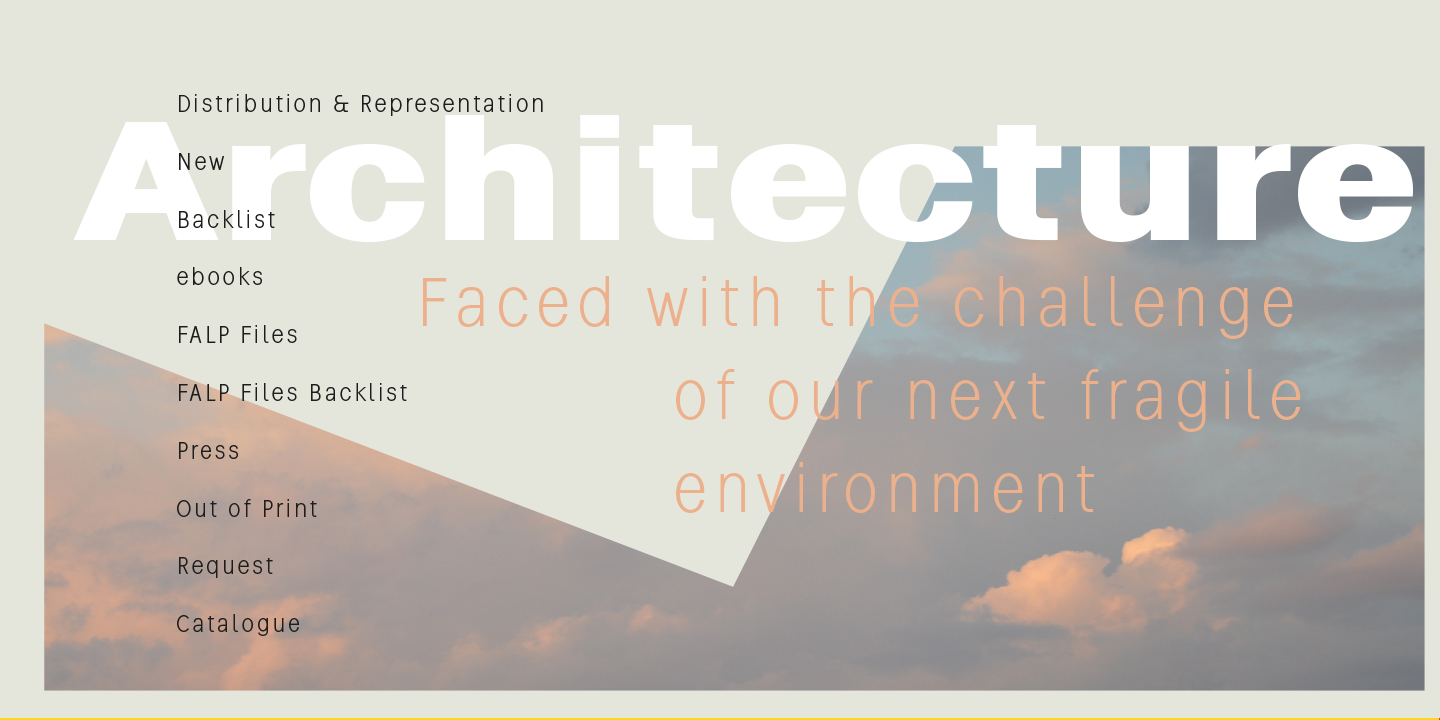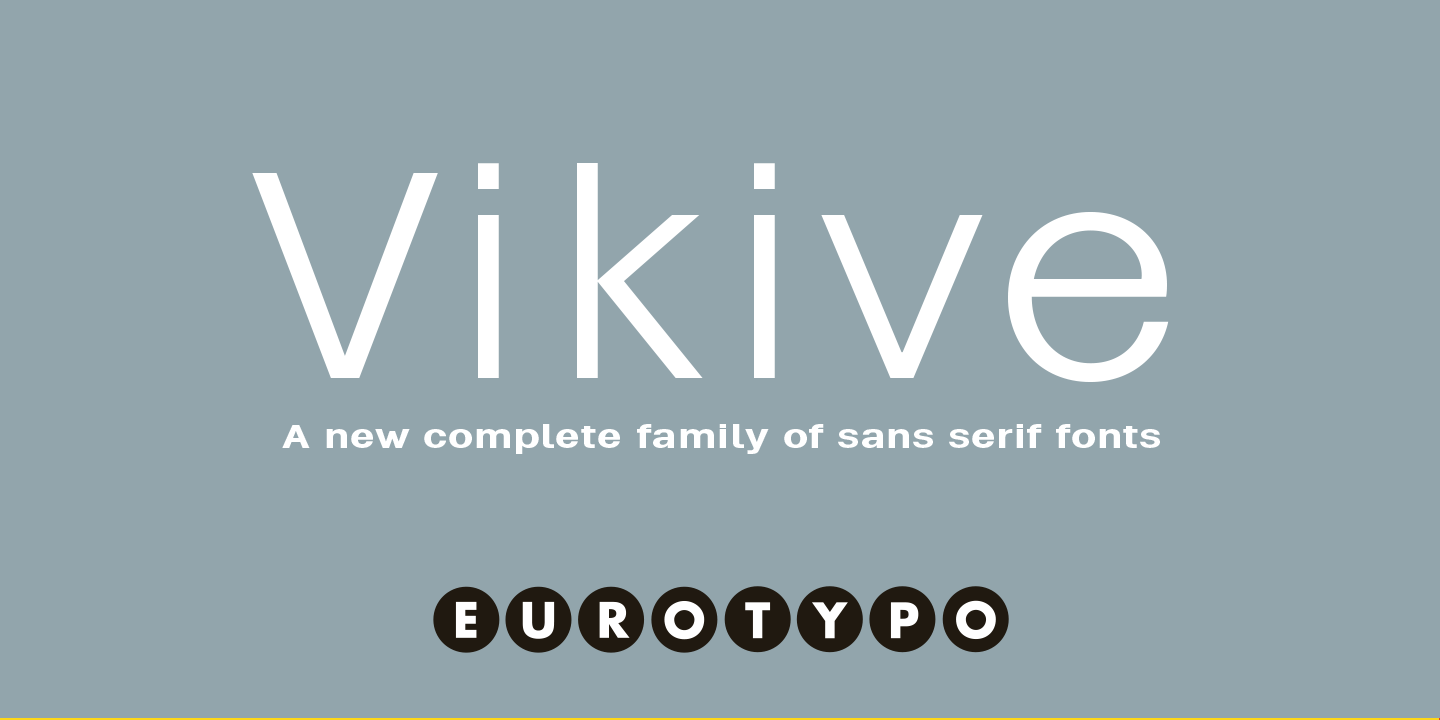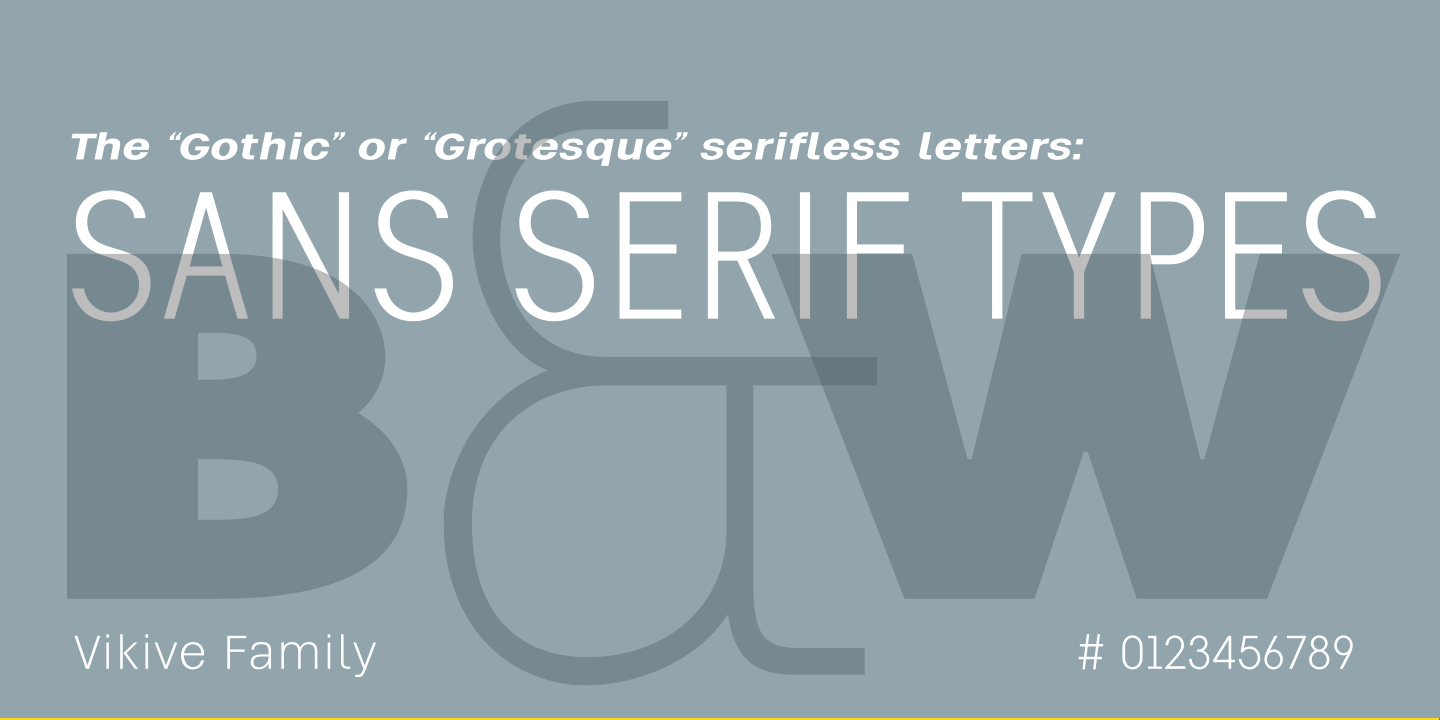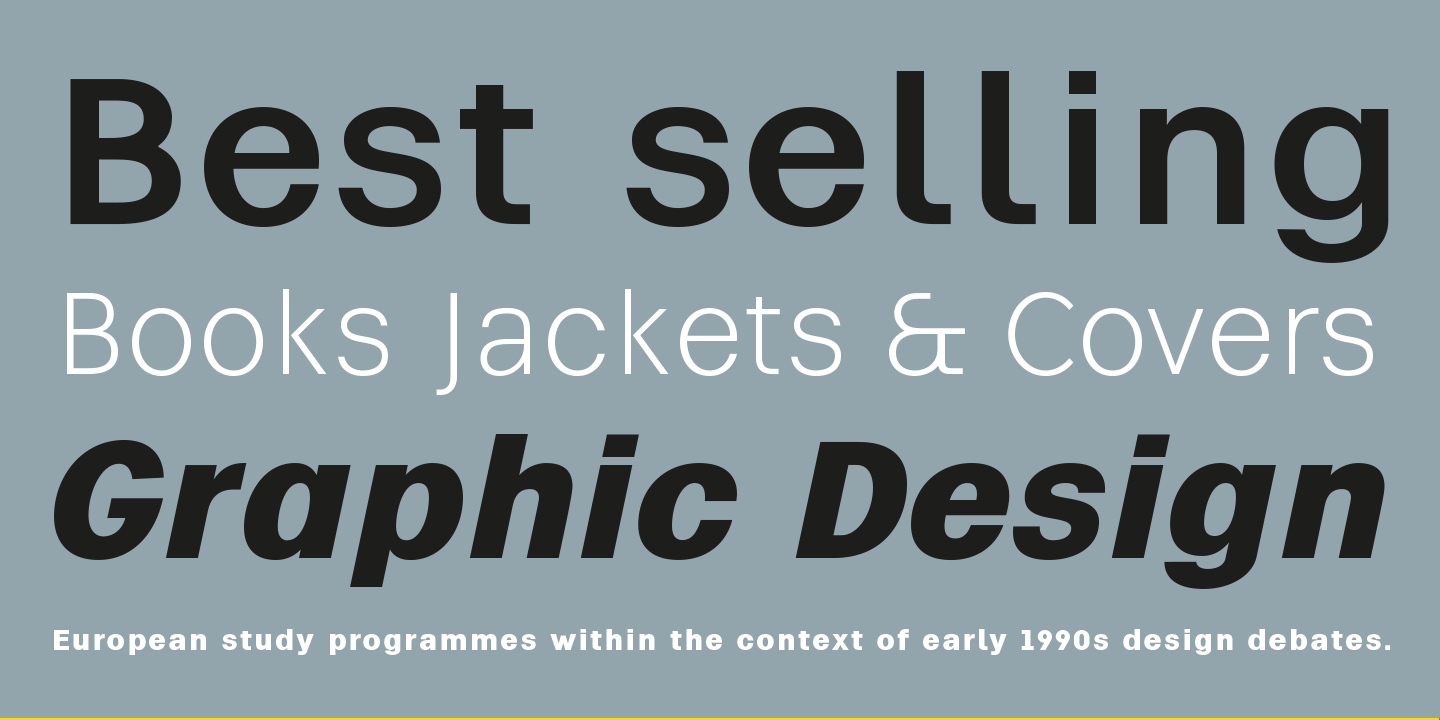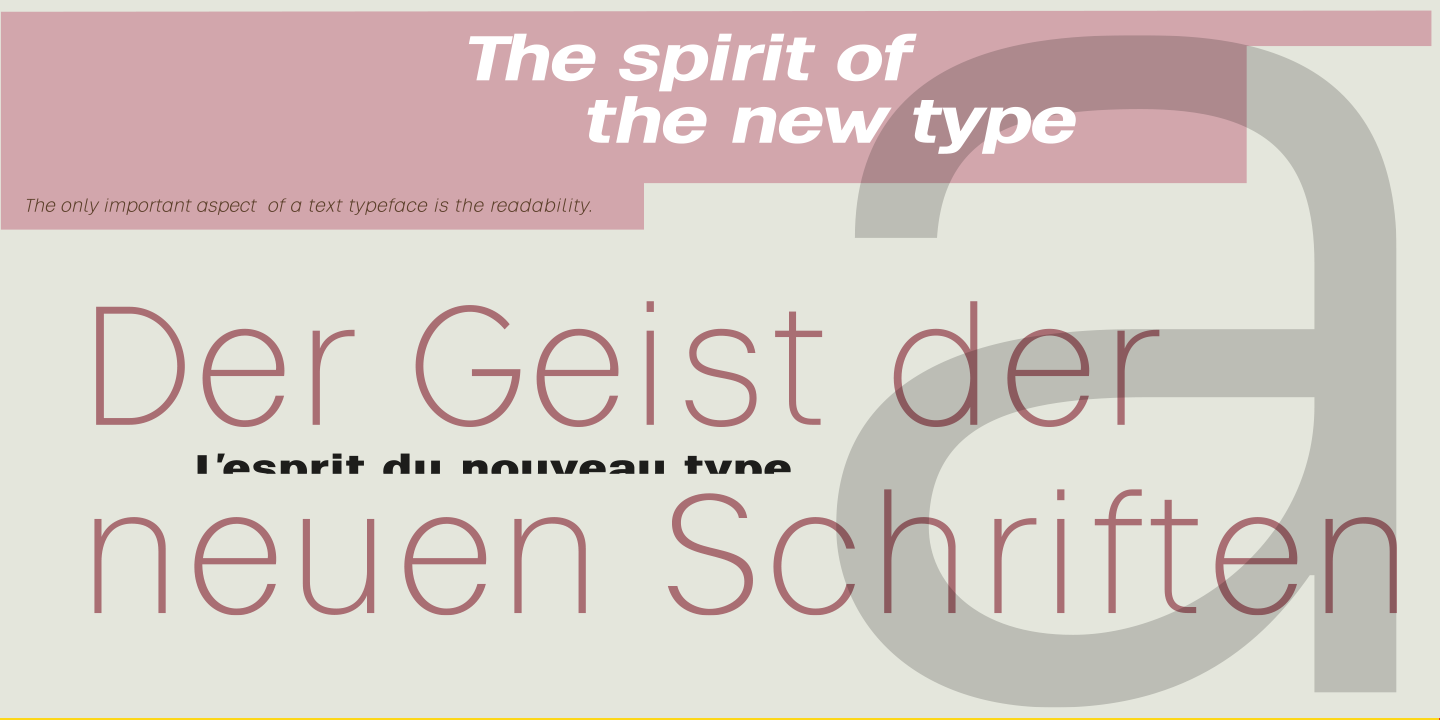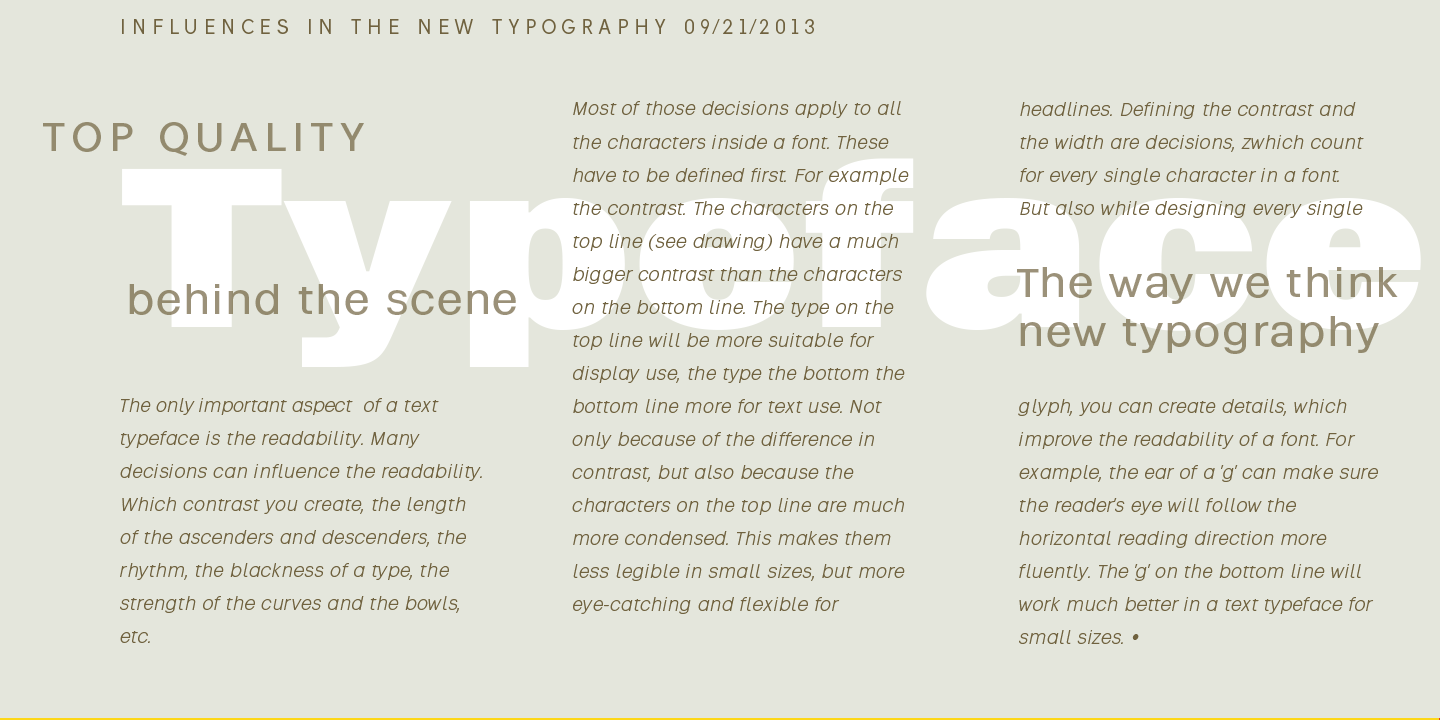
Vikive
A Hybrid American Gothic & Grotesque
Vikive is a Sans Serif type family rooted in the rich traditions of American Gothic and European Grotesque design. While experts typically classify Sans Serif fonts into three main groups—Grotesque, Geometric, and Humanist—Vikive stands out by blending the strengths of the first two. It features a generous x-height, subtly squared curves, a wide stance, open terminals, and a clean, straightforward construction.
Versatile Weights & Widths for Editorial
Built with a true family concept in mind, Vikive offers multiple weights and widths, each paired with its matching italic. This makes it exceptionally versatile for editorial and text settings, while its more extreme styles—from condensed thin to expanded black—deliver striking contrast for headlines and display use.
Modern, Confident & Functional
Vikive doesn’t just set type; it shapes a clear visual voice that is modern, confident, and highly functional.